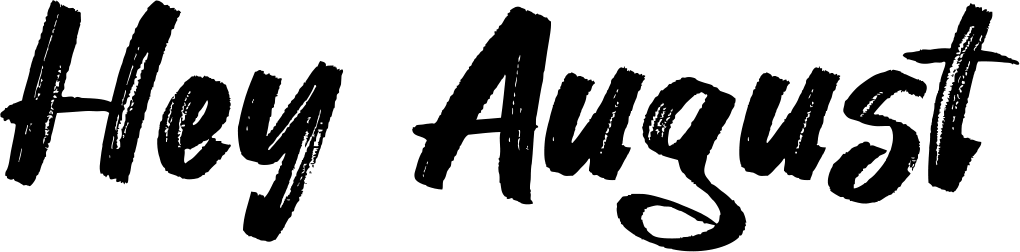
Hey August Font
Hey August is another script font with unique brush-stroke character designs. This font will give a modern, mysterious, informal, and edgy feel to the reader. You can use it to write channel banners, inspirational texts,…
Hey August is another script font with unique brush-stroke character designs. This font will give a modern, mysterious, informal, and edgy feel to the reader. You can use it to write channel banners, inspirational texts, mysterious and detective book titles, cartoon and movie names, party posters and flyers, and product packaging.